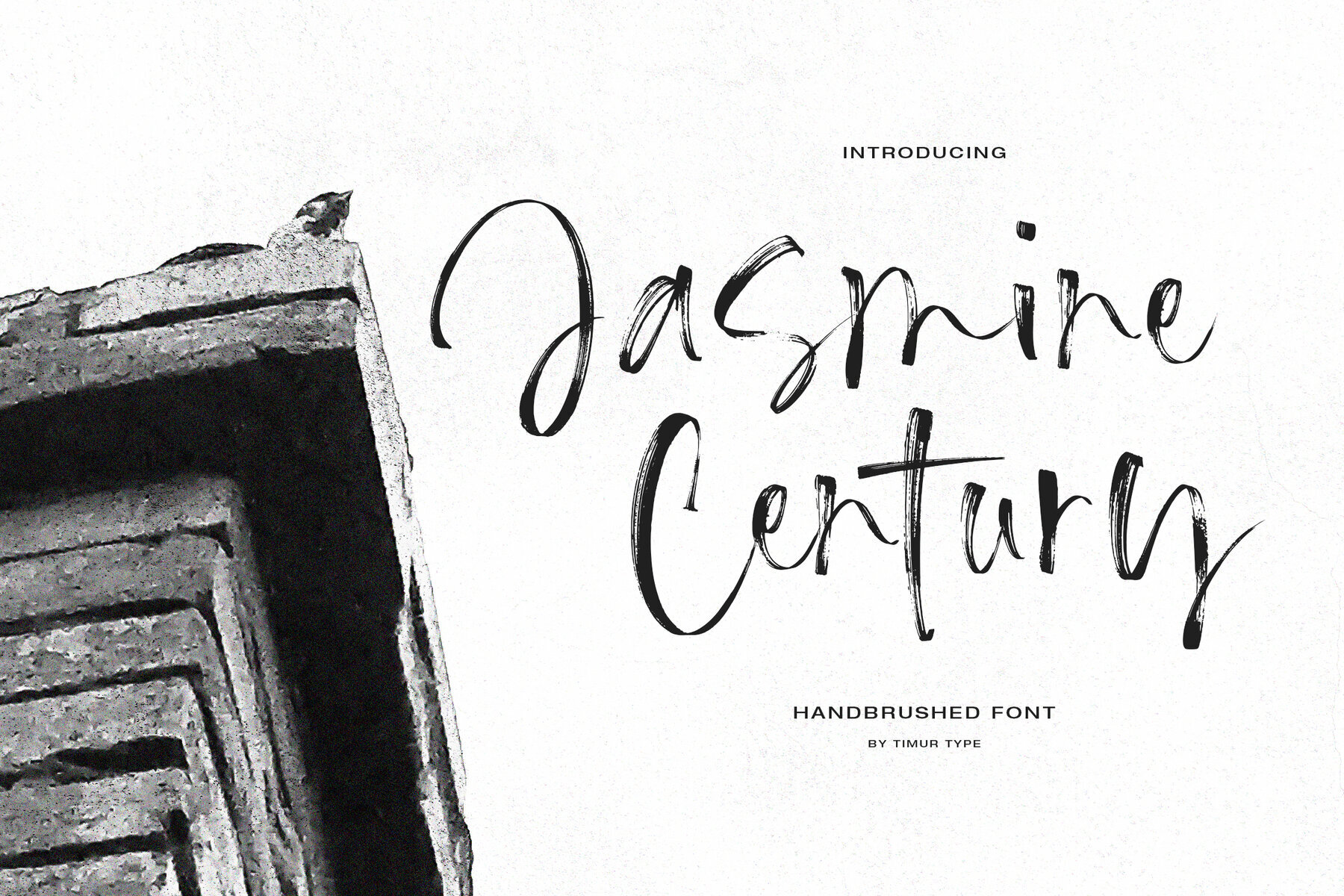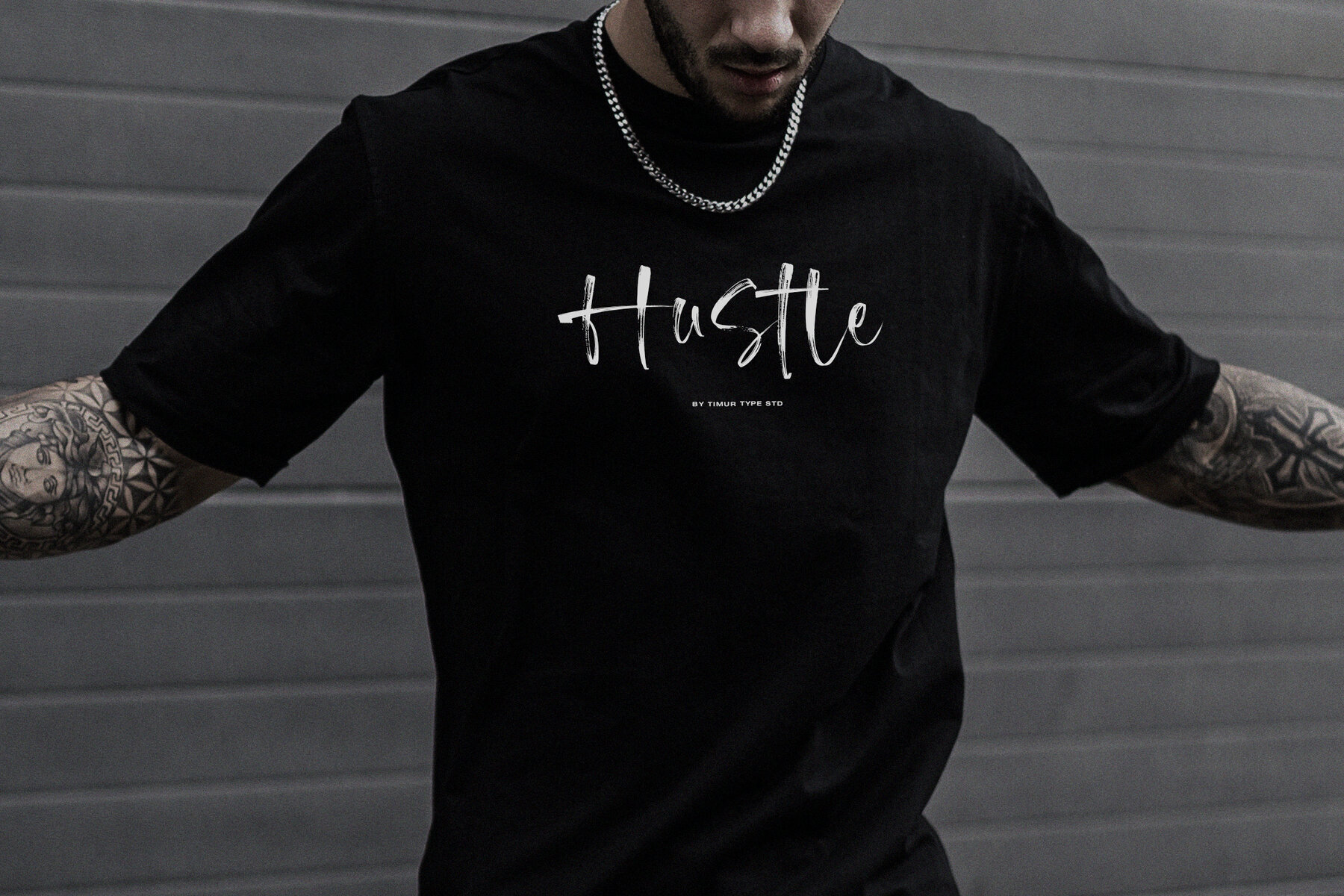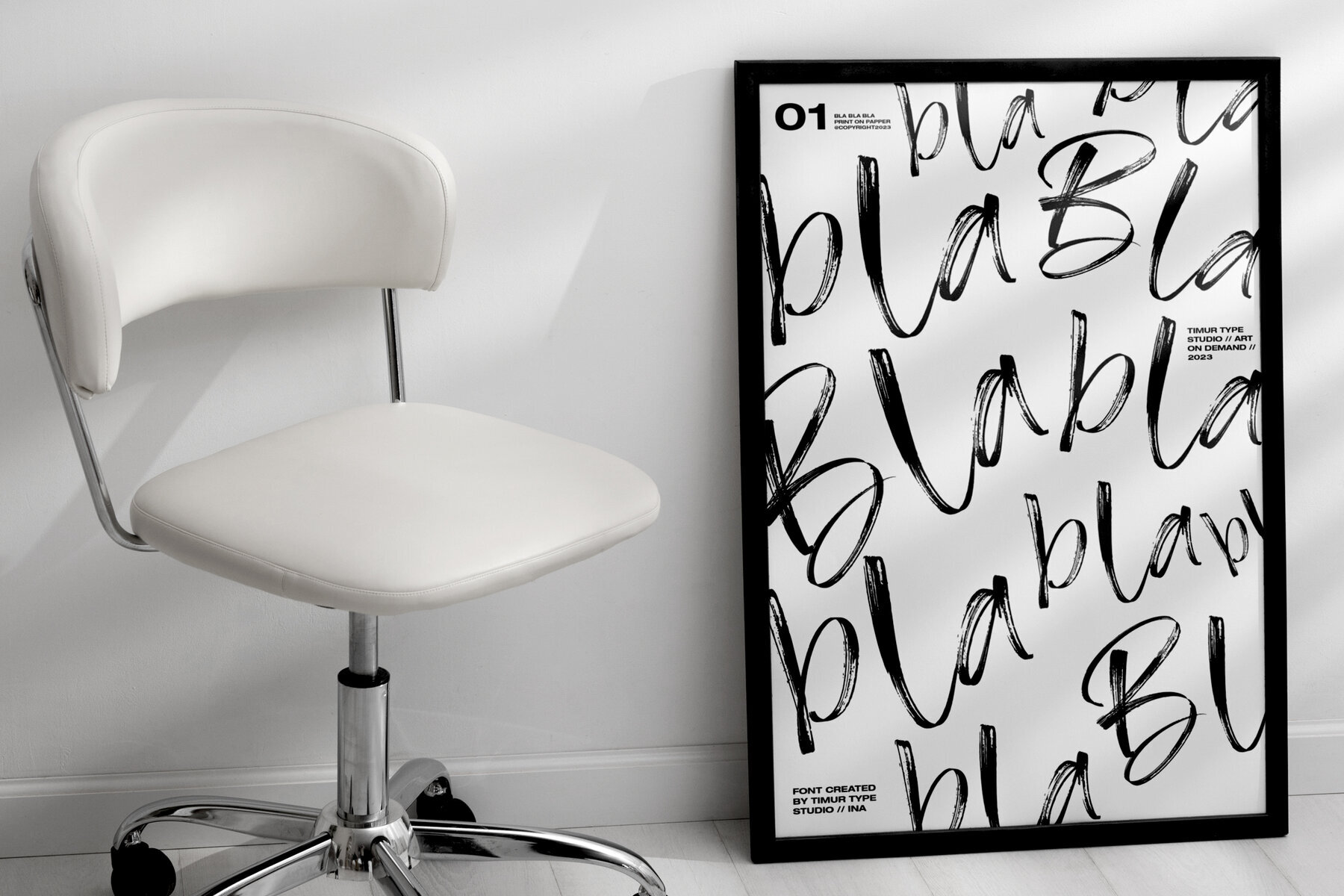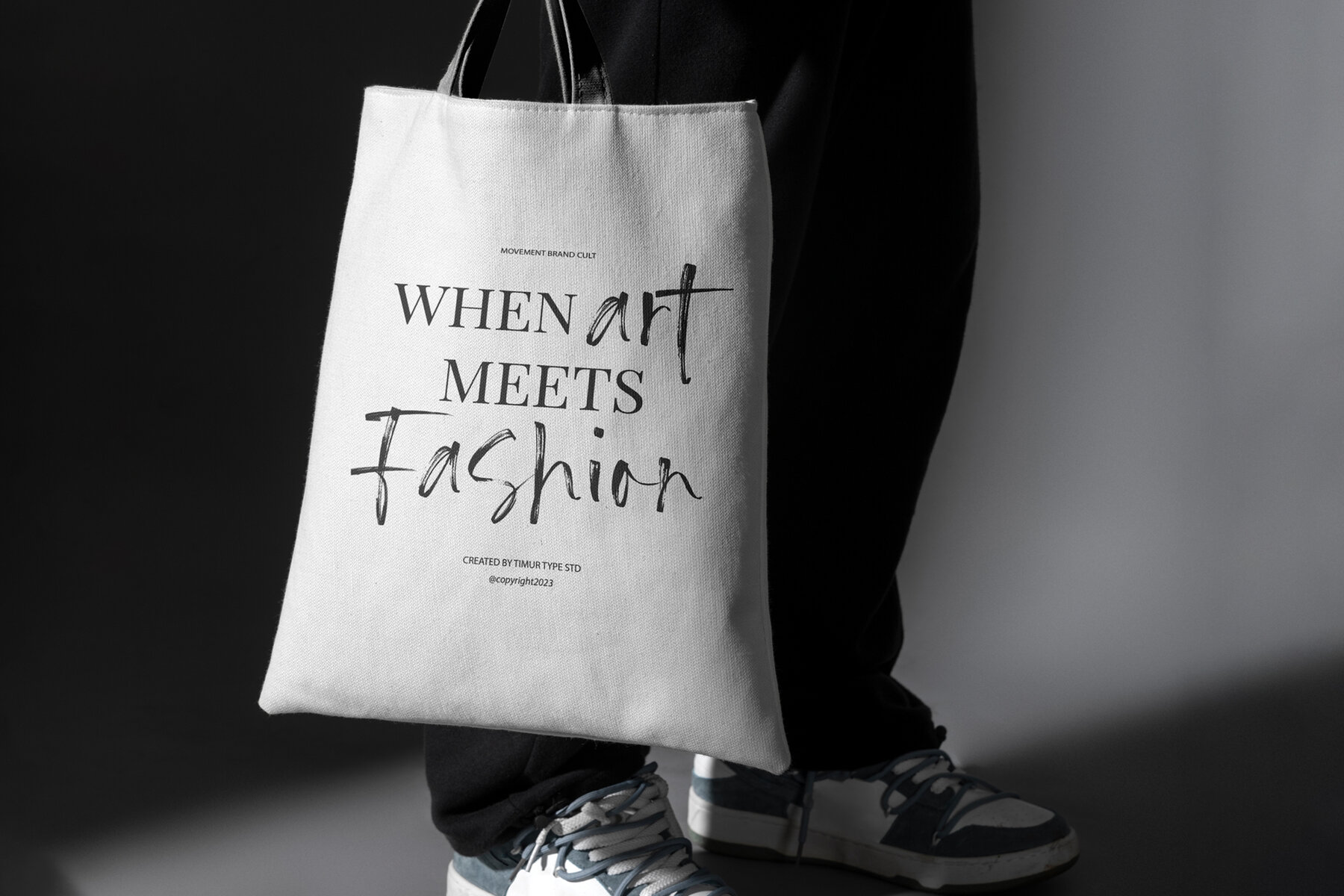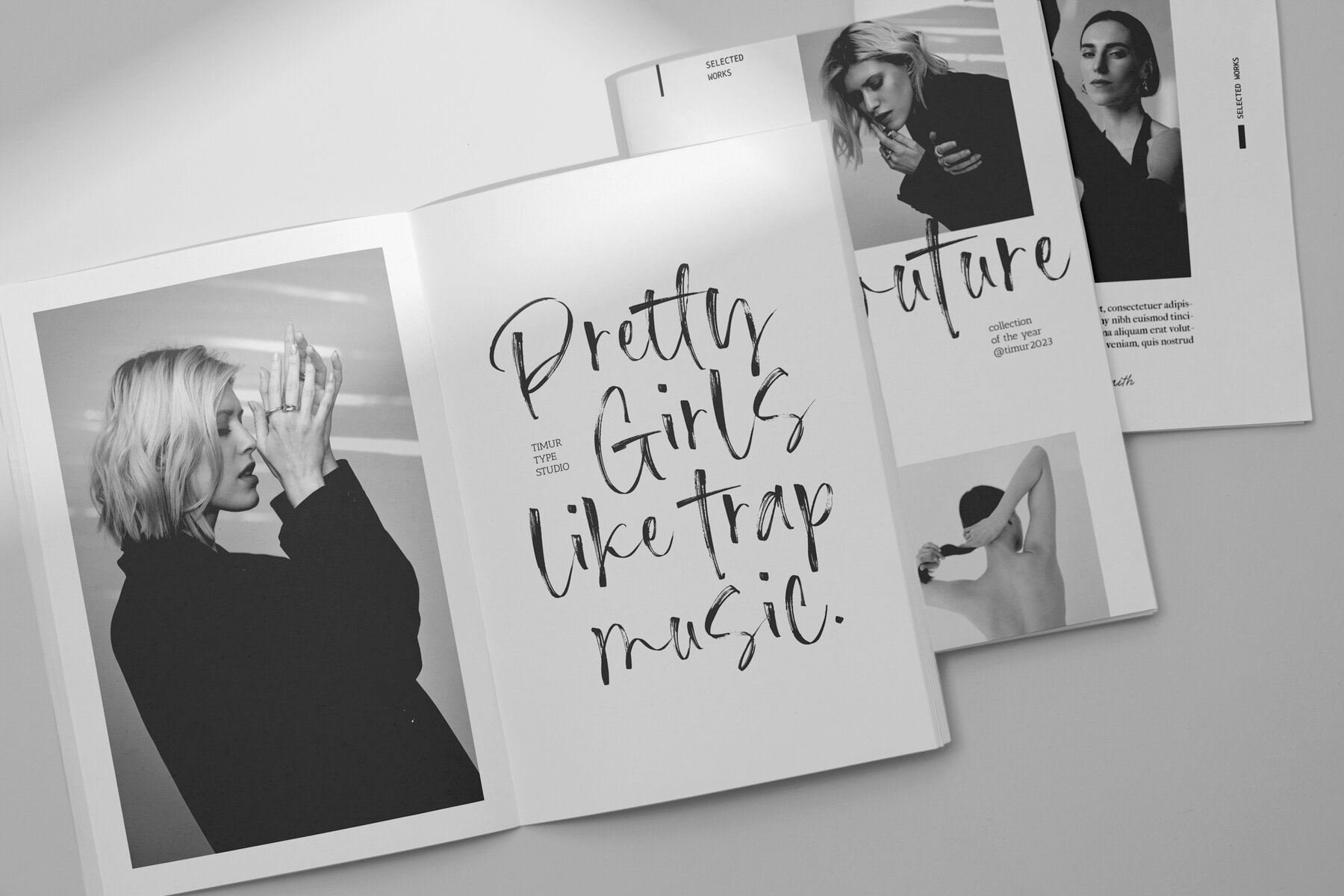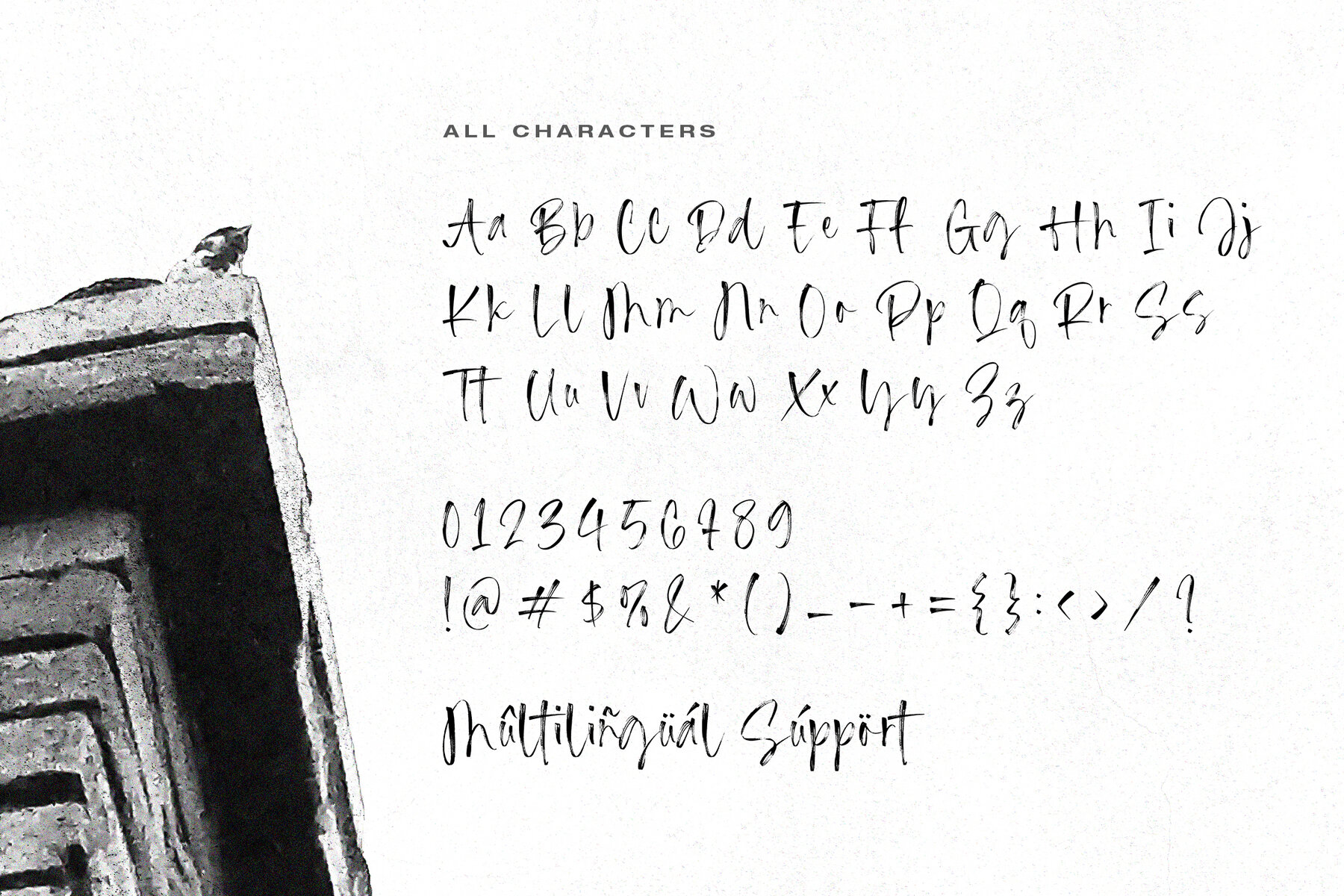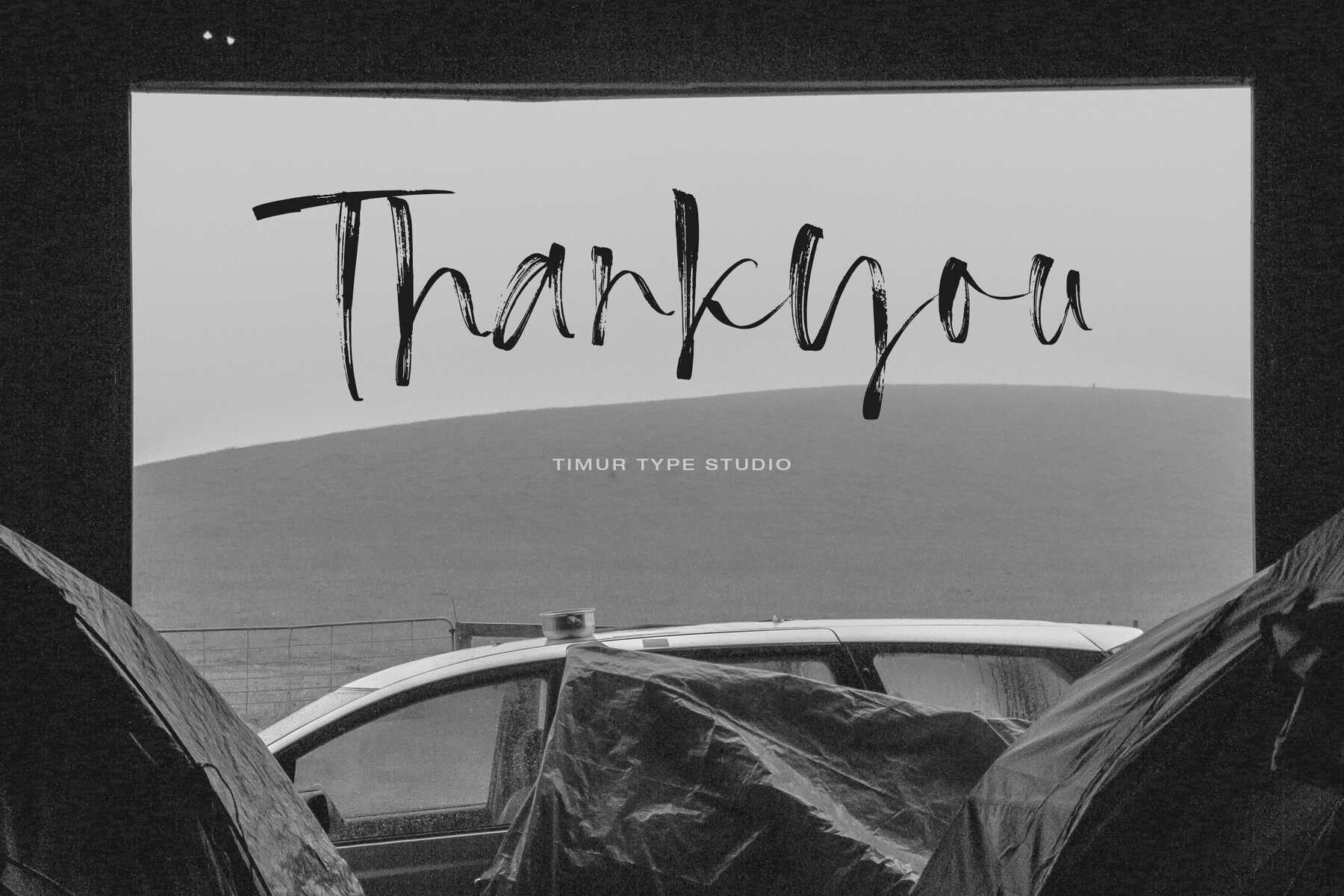
Jasmine Century Font
Jasmine Century
Jasmine Century is a beautifully crafted handbrushed font that brings the fluidity and charm of brush strokes to your design projects. Each character is meticulously designed to showcase a natural and unique handwritten appearance, adding a layer of authenticity and creativity. Perfect for logos, branding, invitations, and social media graphics, Jasmine Century imbues your work with an organic feel that captures attention and evokes a range of emotions.
This versatile typeface adapts to various styles, from casual and playful to elegant and sophisticated, making it a popular choice among designers. Whether you're aiming for a charming, relaxed look or a more refined and polished vibe, Jasmine Century delivers artistic expression and personality to every piece.